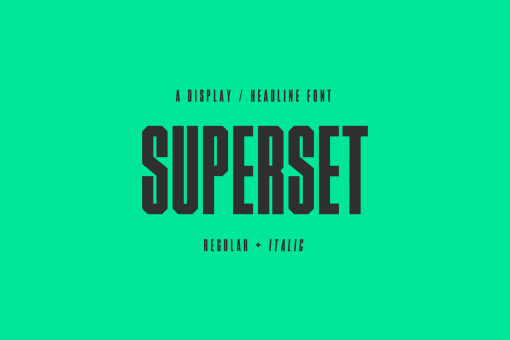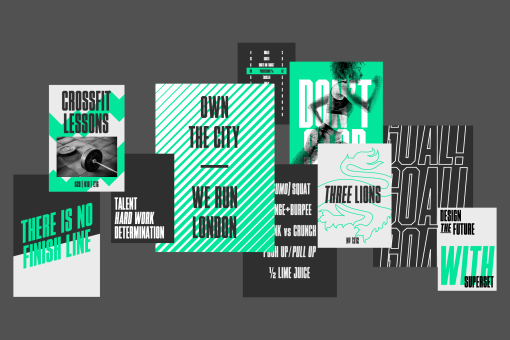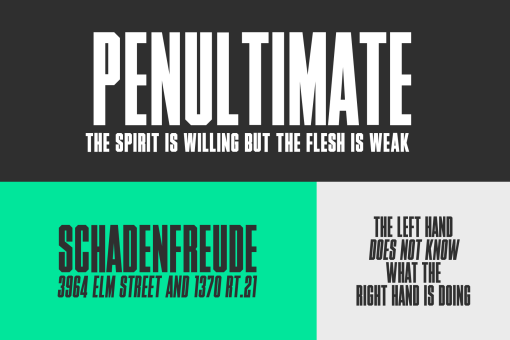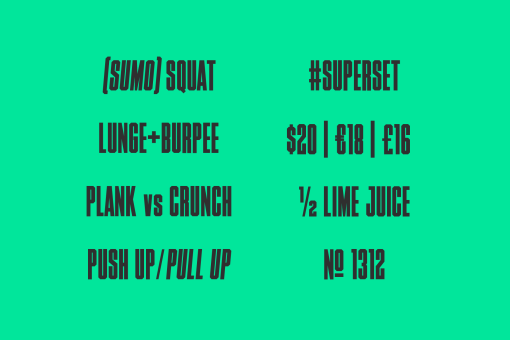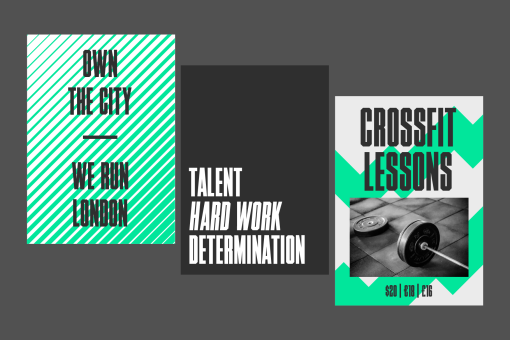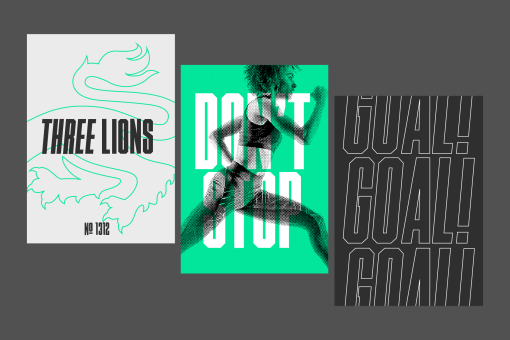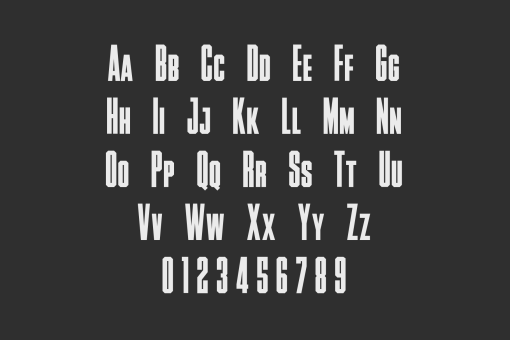
Superset
Superset, a narrow, display/headline font, can be used to present your ideas in sport/fitness or editorial, in advertisements and large headlines. This font is ideal for helping you with presentations creating, gift cards and posters, or social media design. Add some bold uniqueness to your designs!